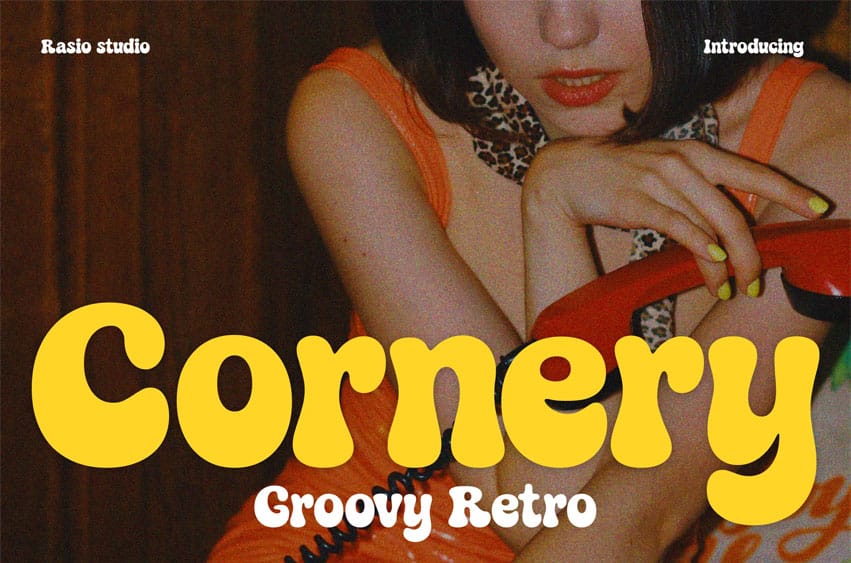
Cornery Font is a bold and playful groovy font inspired by the charm of 70s retro aesthetics. With its soft, rounded corners and bubbly letterforms, this typeface radiates warmth, positivity, and vintage fun. Perfect for posters, logos, packaging, and social media graphics, Cornery brings nostalgic energy to any creative project. The smooth curves and dynamic rhythm of each character make it both expressive and easy to read. Comes complete with uppercase, lowercase, numbers, and punctuation.
Relevance and Use Cases is perfect for retro posters, 70s-inspired branding, album covers, funky logo designs, packaging, and creative advertising. Cornery captures the essence of groovy nostalgia while staying fresh and versatile for modern projects.